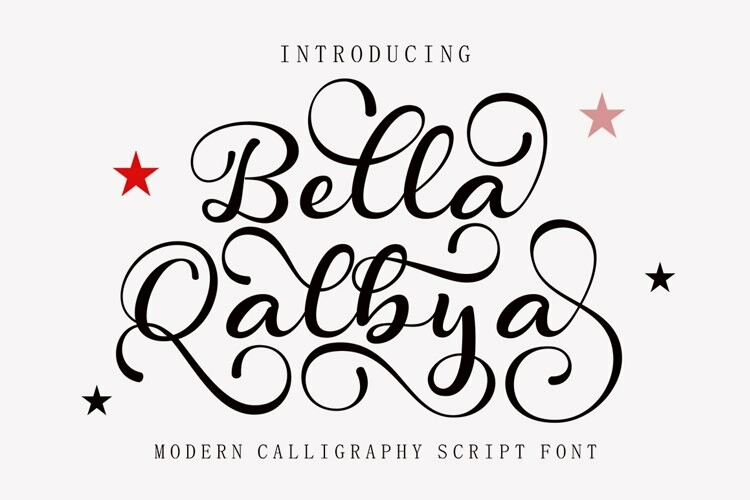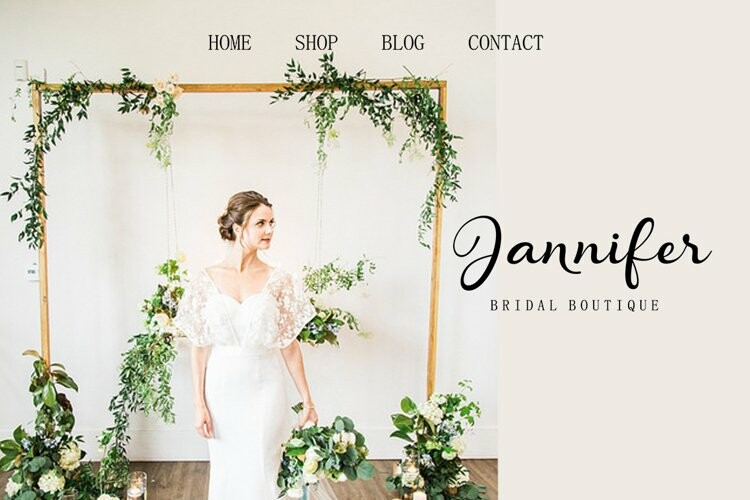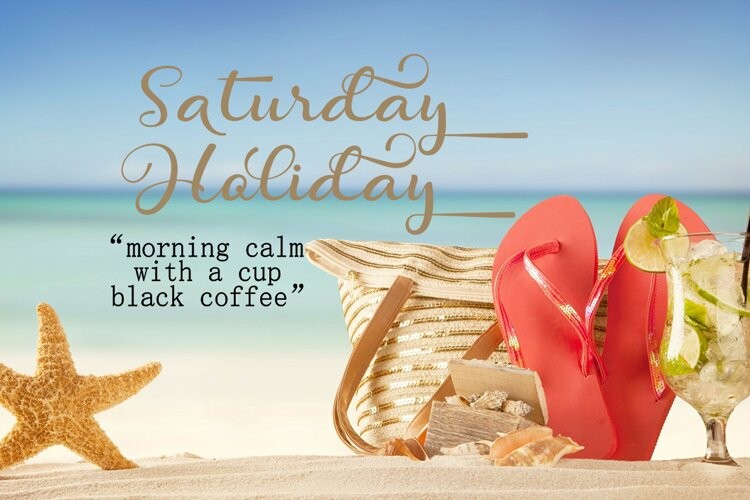
Bella Qalbiya Font
Bella Qalbiya FontBella Qalbiya Script is a clean and beautiful modern script font. Featuring lovely swash with irregular baseline. No matter the topic, this font will be an incredibly asset to your fonts’ library, as it has the potential to elevate any creation Bella Qalbiya Script is PUA encoded which means you can access all of the glyphs and swashes with ease…!